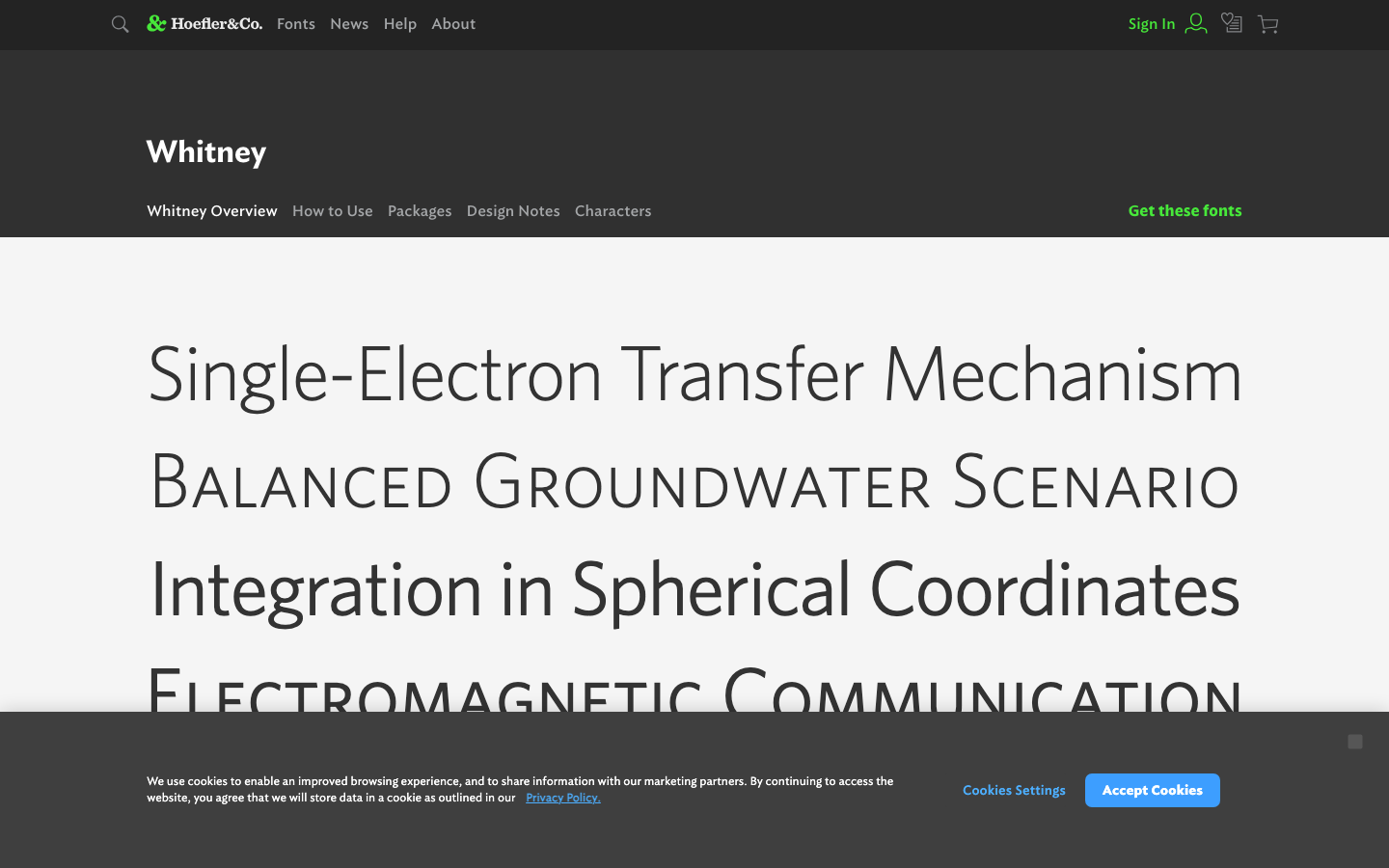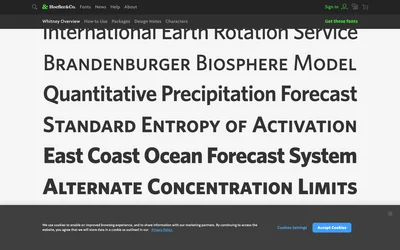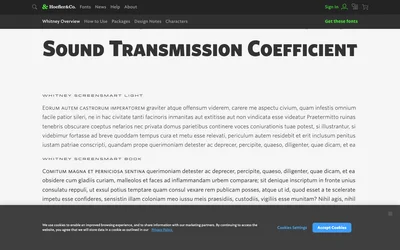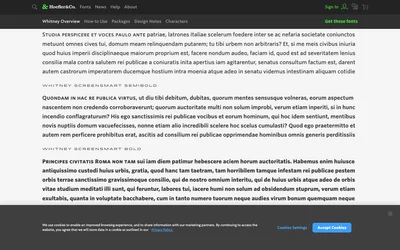
Meta vs Whitney
Meta and Whitney are both sans-serif typefaces sharing a humanist foundation. Where Meta leans warm, signage, Whitney brings editorial, modern. Compare which suits your Wayfinding project.
Meta
Humanist
ReadableWarm
Signage
Whitney
Humanist
ReadableModern
Meta
Whitney
| Feature | Meta | Whitney |
| Language Support | latin, latin-extended, cyrillic, greek | latin, latin-extended |
| Source | FontFont | Hoefler&Co |
Recommended: Meta
- warm, signage design character
- Suited for Ui
- From FontFont
Consider: Whitney
- editorial, modern design character
- Suited for Signage
- From Hoefler&Co